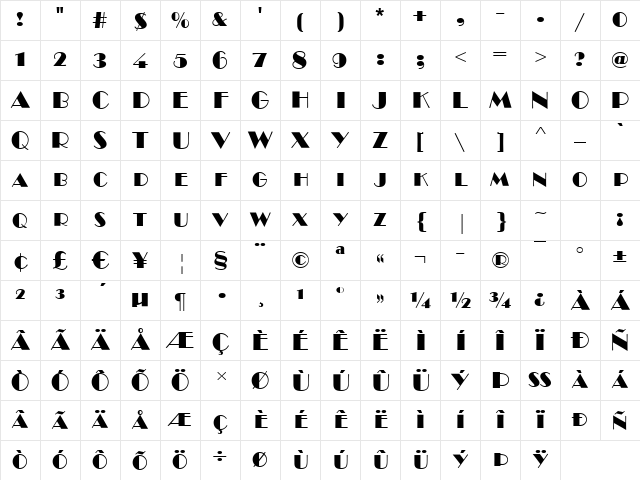
Broadway-Caps Regular Free Font
Broadway-Caps Regular
Design Context for Broadway-Caps
Broadway-Caps is a composed and adaptable typeface that performs quietly and consistently across a wide range of design contexts.